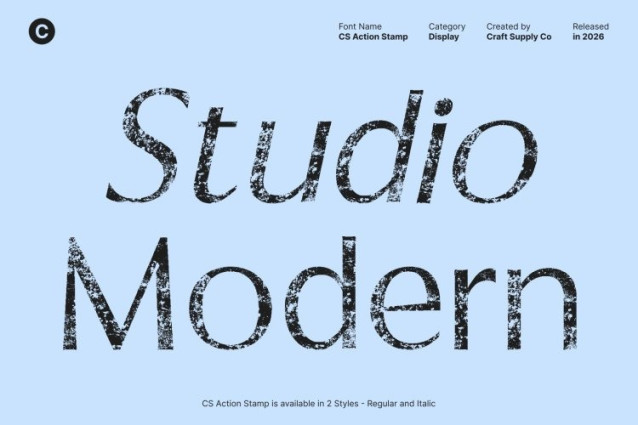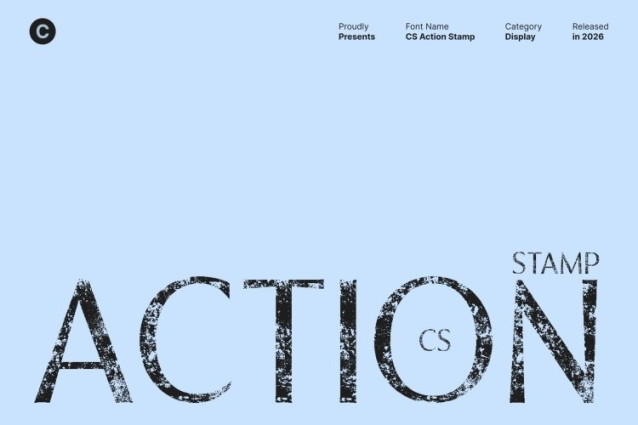
CS Action Stamp Font
CS Action Stamp Font This is a contemporary sans-serif font designed with clean geometry and a minimalist foundation. Its sleek, well-balanced letterforms deliver a modern and confident appearance, ensuring strong readability and visual clarity. The structured design provides a professional tone while maintaining a fresh and up-to-date aesthetic.
Stamp Texture with Subtle Vintage Character
Enhanced with a distinctive stamp effect, this font introduces light texture and organic imperfections to its clean forms. This stamped finish adds a vintage-inspired edge and tactile depth, preventing the design from feeling overly sterile. The result is a sans-serif font that feels bold, expressive, and visually engaging.
Clean Simplicity with Expressive Depth
By removing unnecessary ornamentation and focusing on essential form, this font achieves uncomplicated elegance. The combination of minimalist structure and textured detailing creates a balance between clarity and character, making the font functional yet visually interesting across diverse design contexts.
Ideal for Professional and Creative Applications
Perfect for branding, posters, packaging, editorial layouts, and modern digital design, this font delivers impactful visual communication. Its contemporary form paired with stamped texture makes it ideal for designers seeking a clean sans-serif font with a hint of vintage grit and strong modern presence.